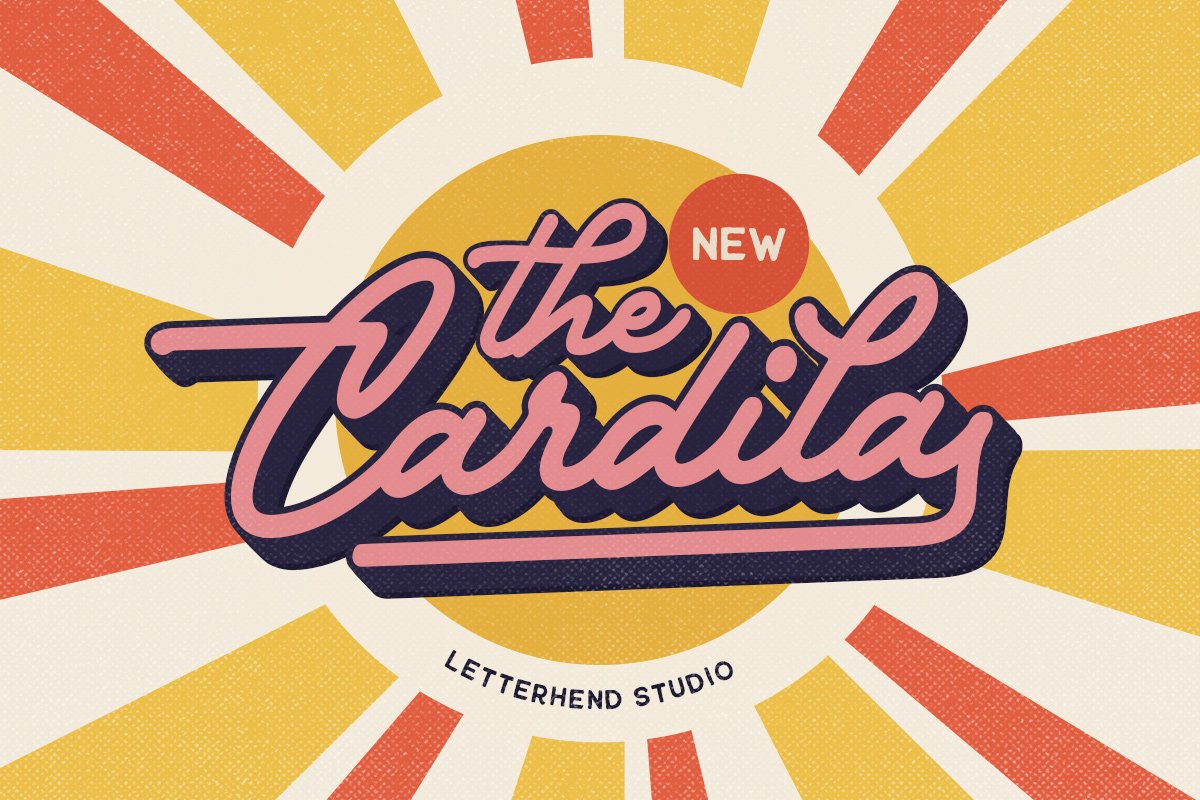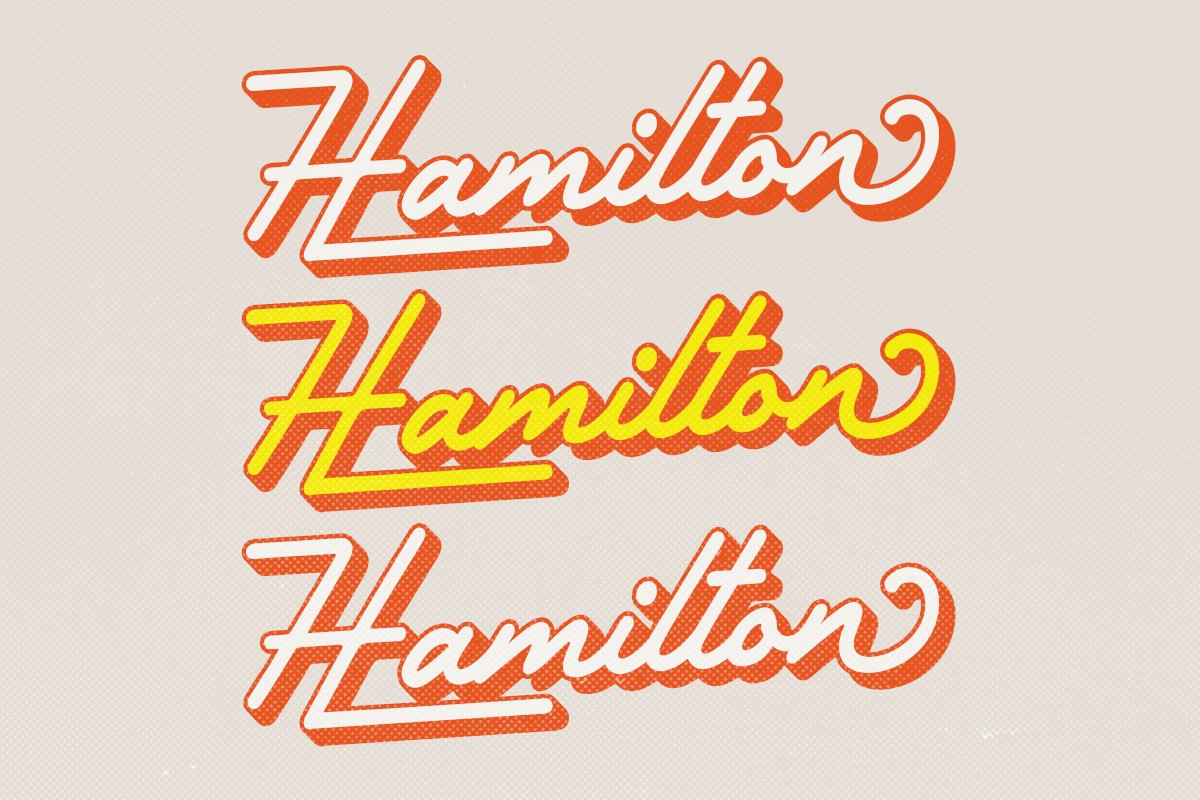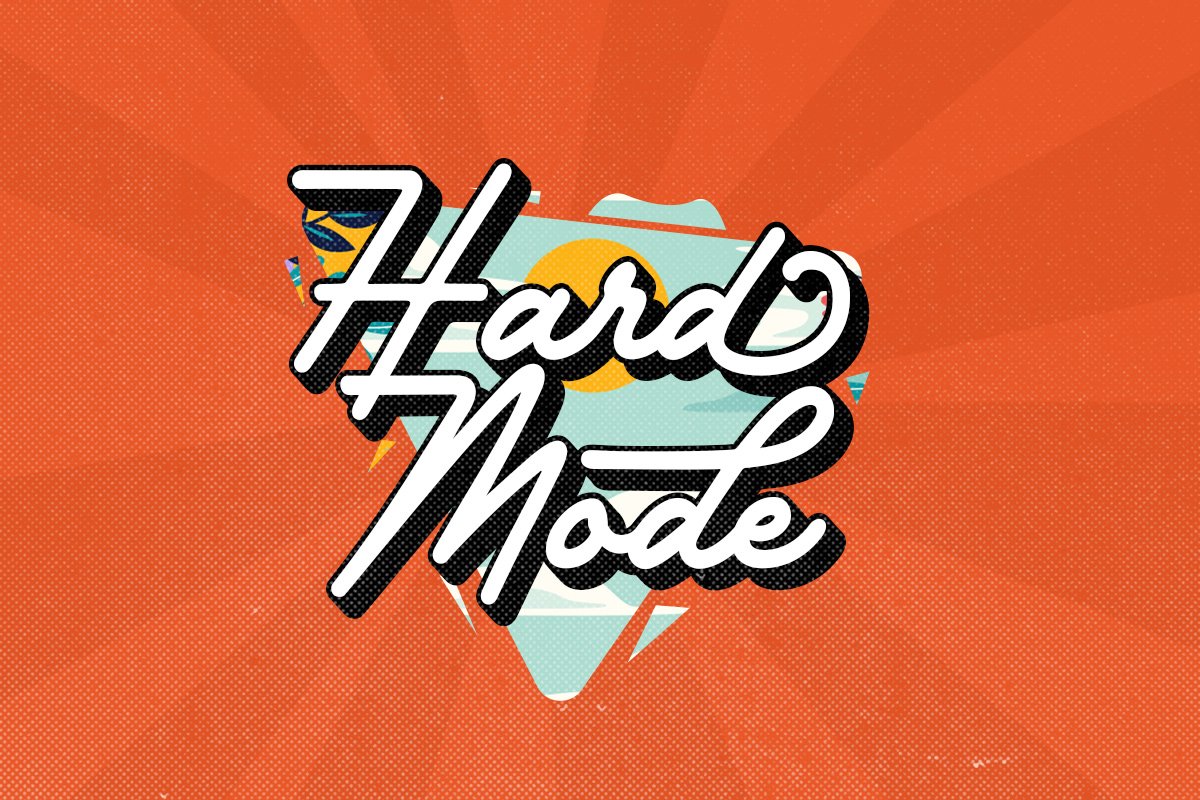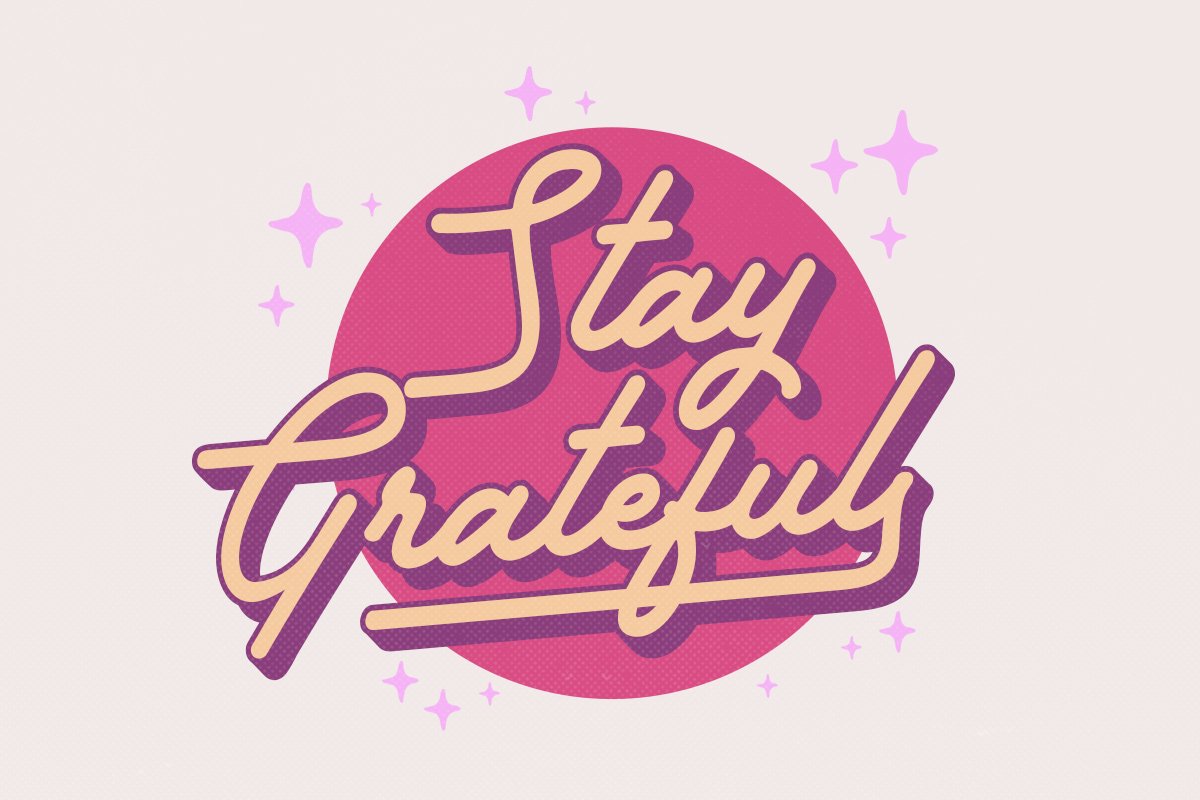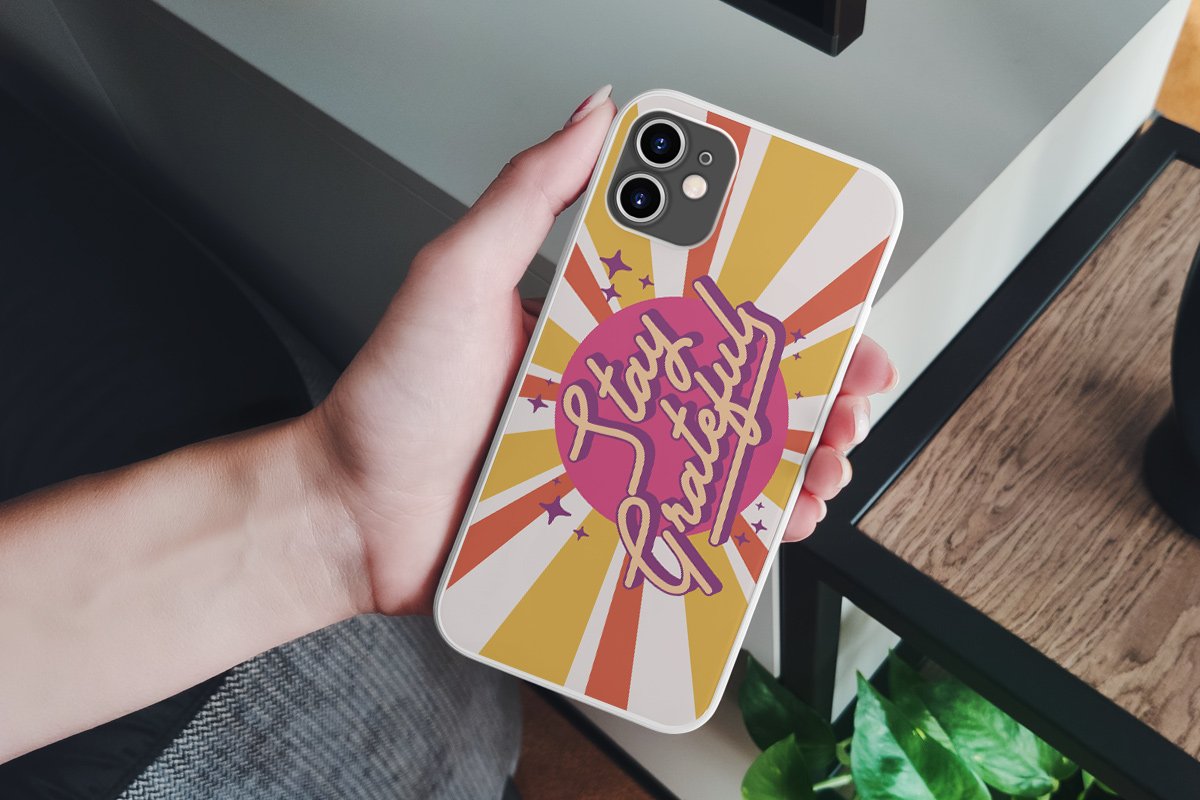
About the The Cardila Retro Script
The Cardila is a retro bold script which will bring you back to 60s feel, This typeface has the extrude version so you can create your retro effect font in ease, This font perfectly made to be applied especially in logo, and the other various formal forms such as invitations, labels, logos, magazines, books, greeting / wedding cards, packaging, fashion, make up, stationery, novels, labels or any type of advertising purpose